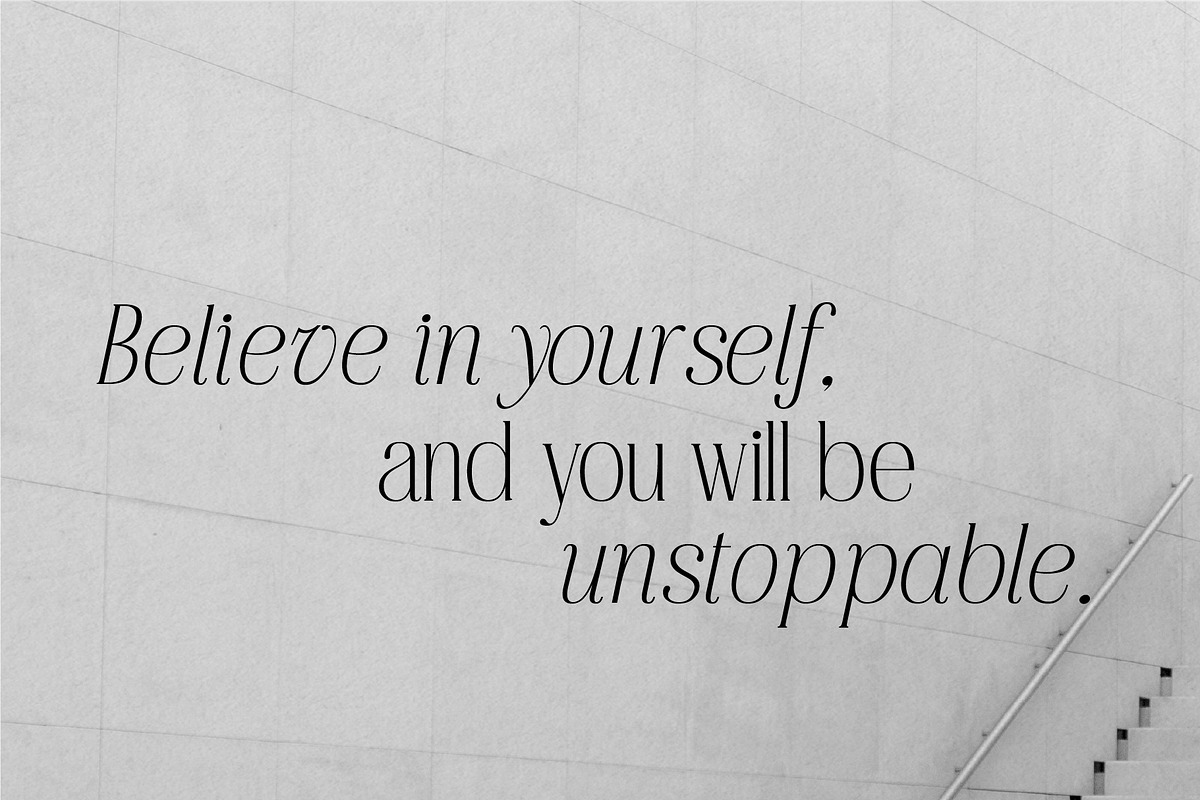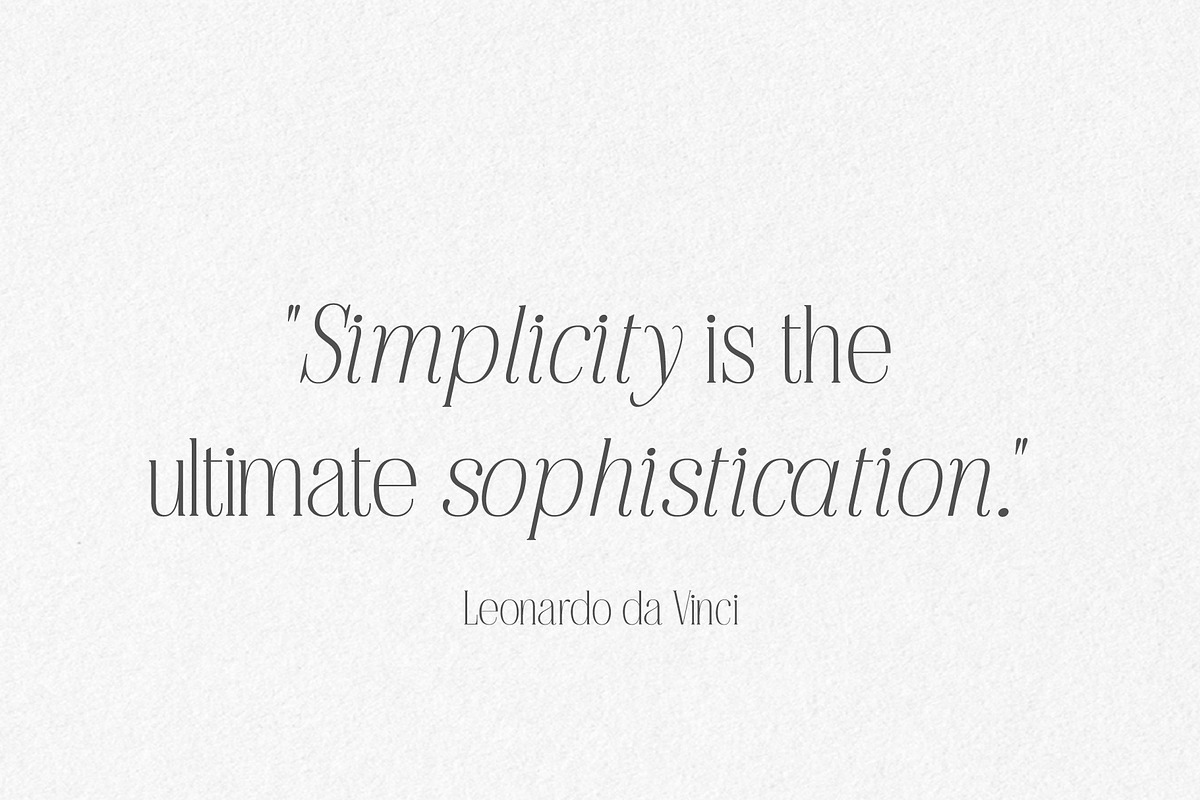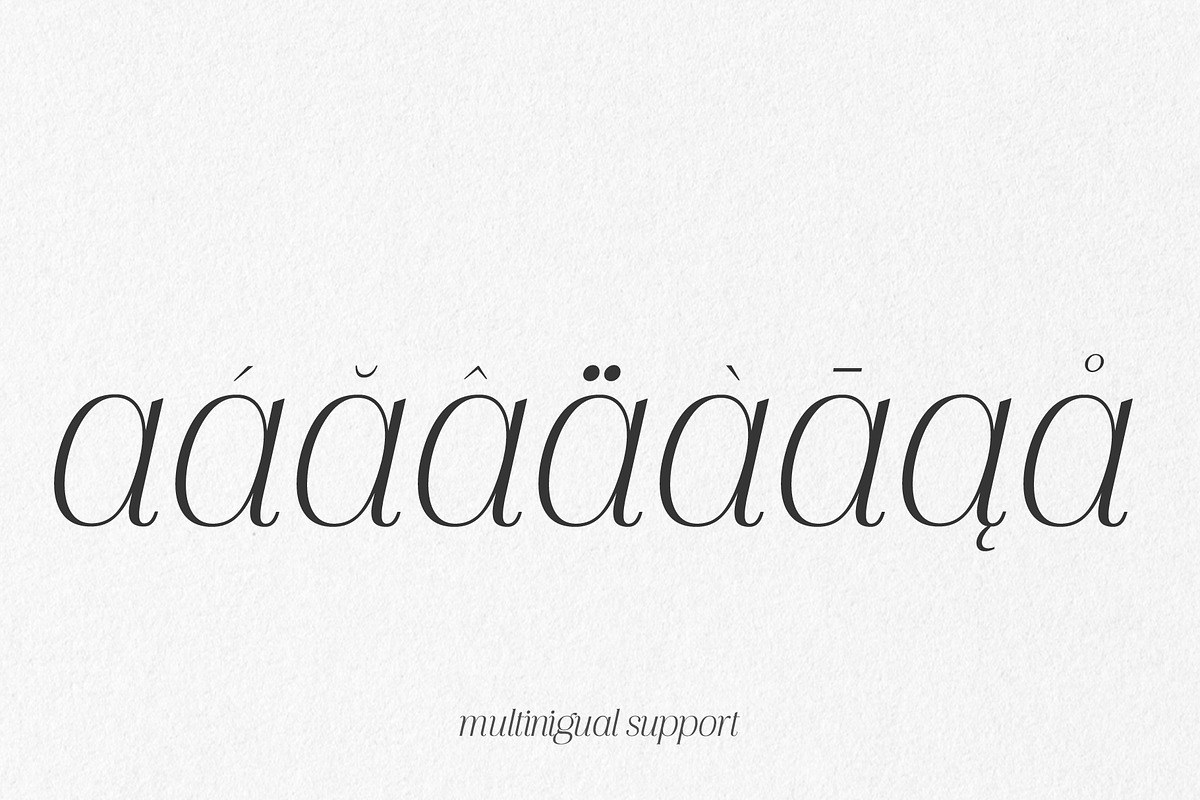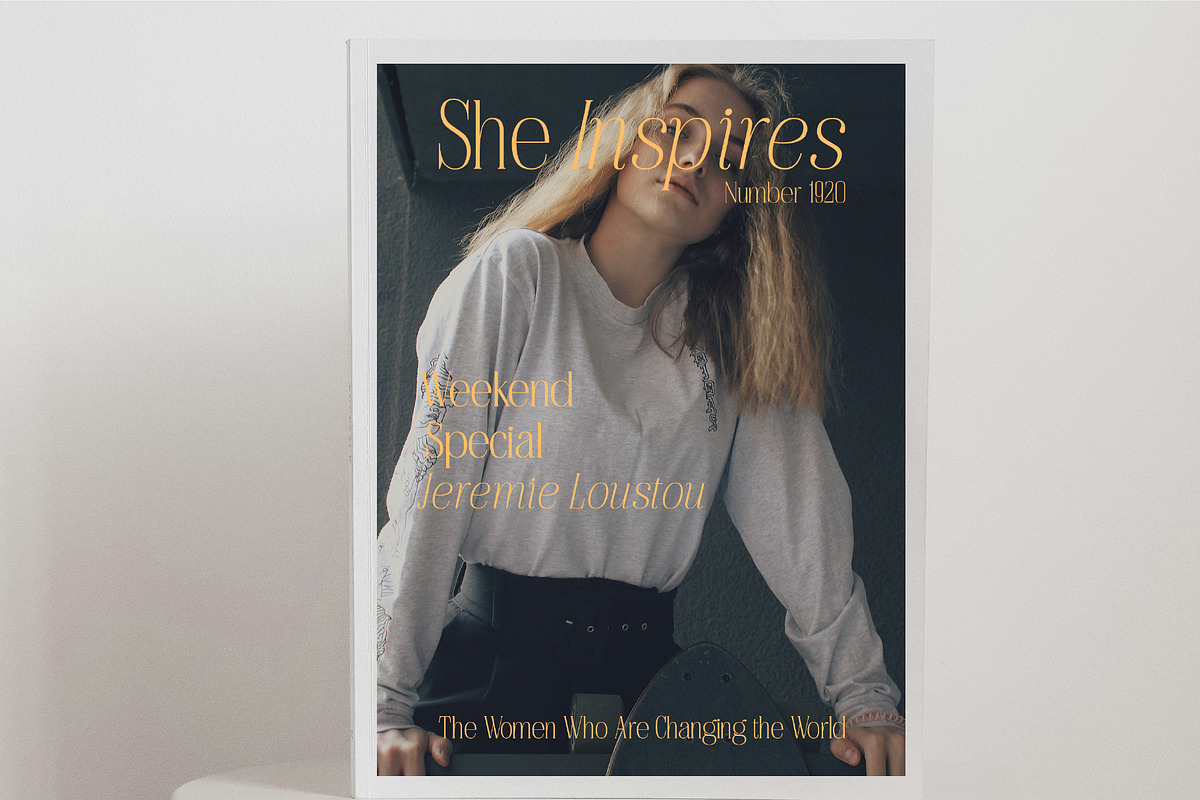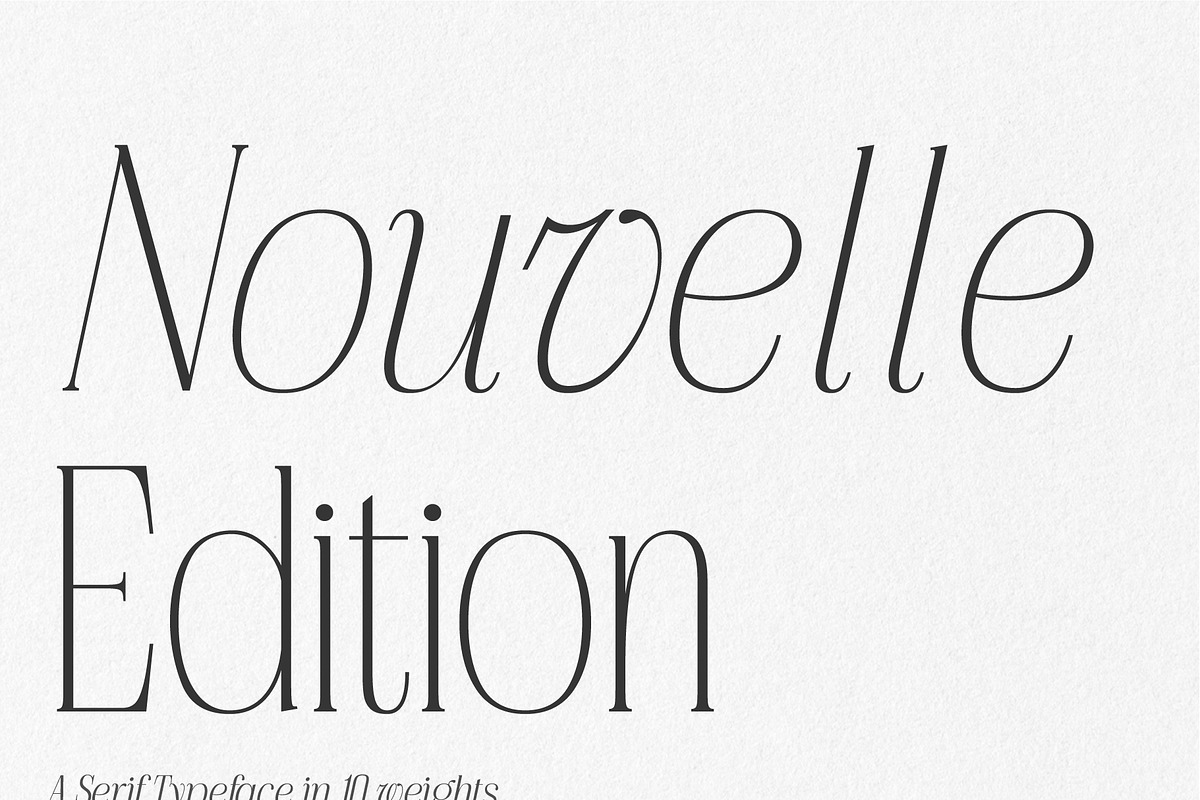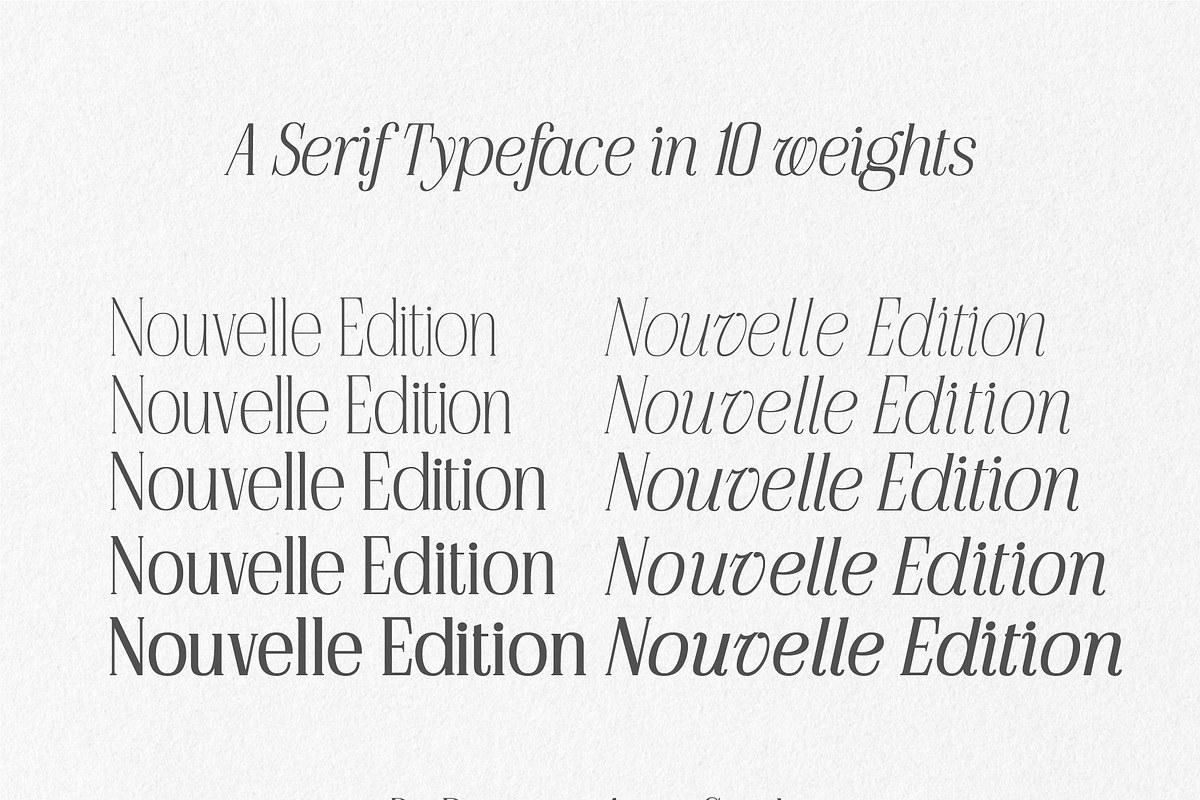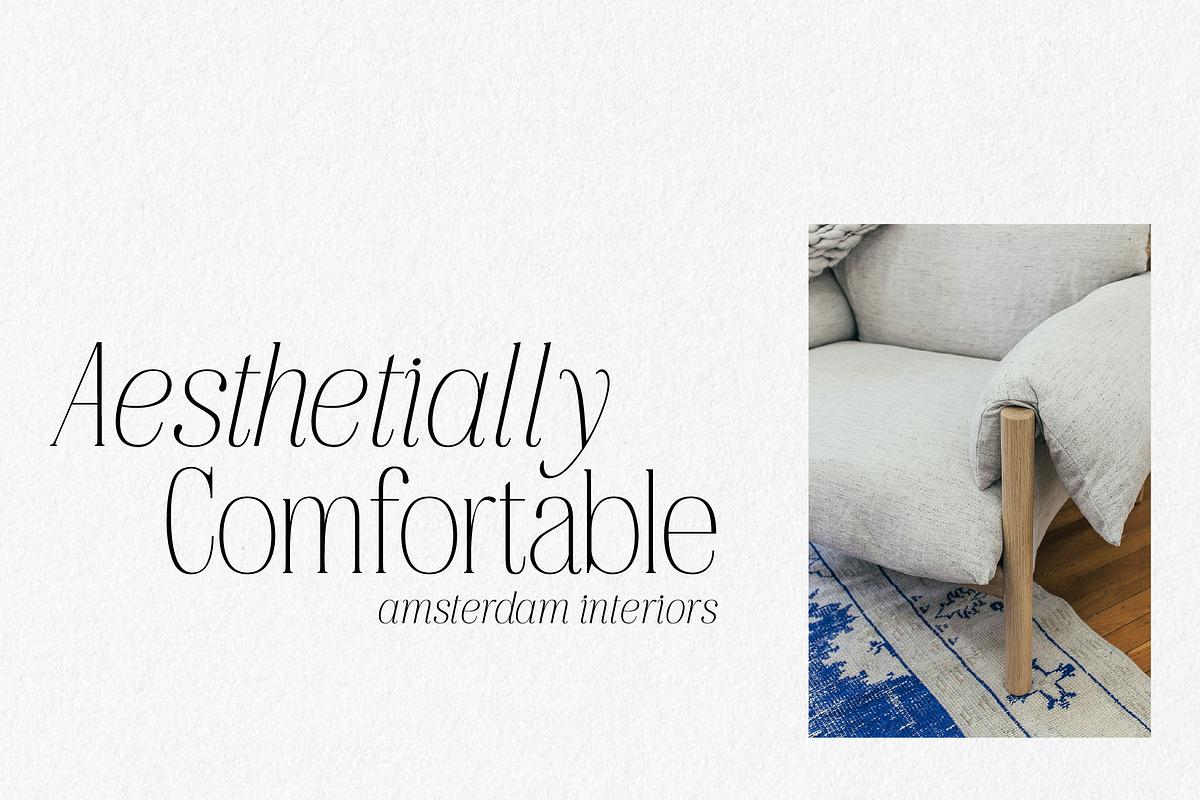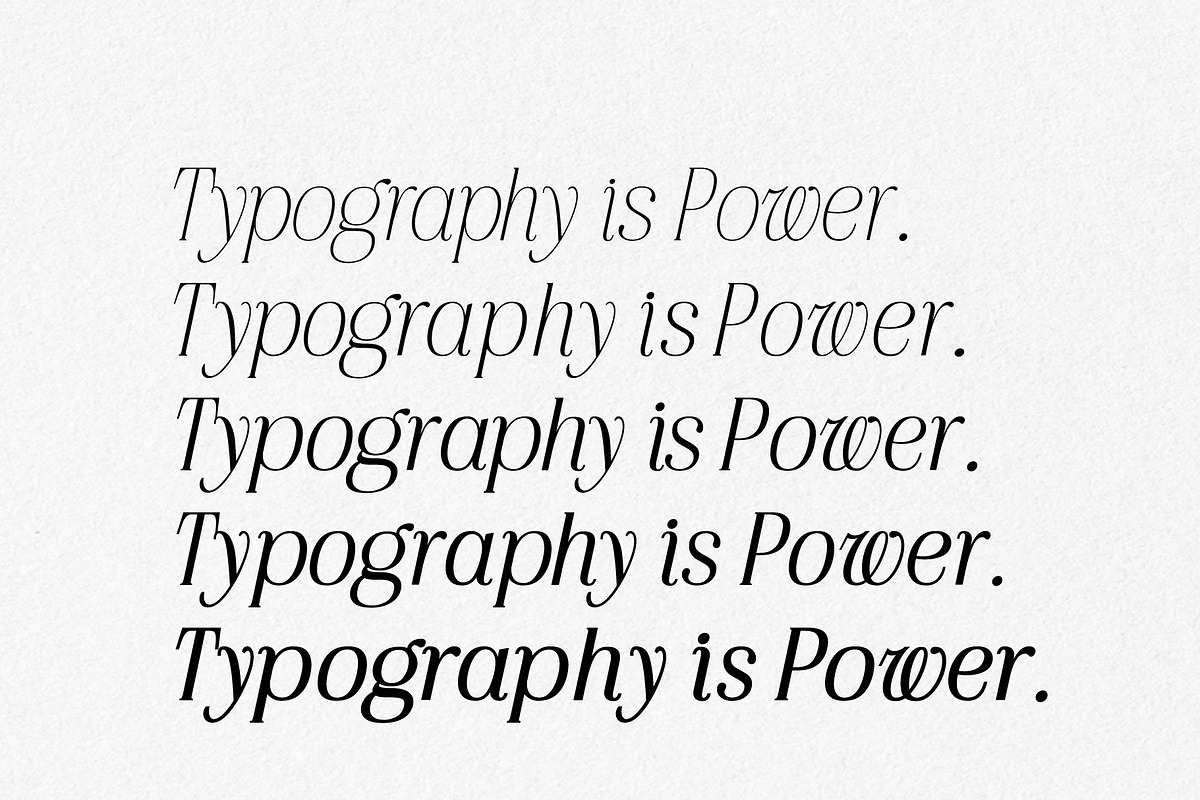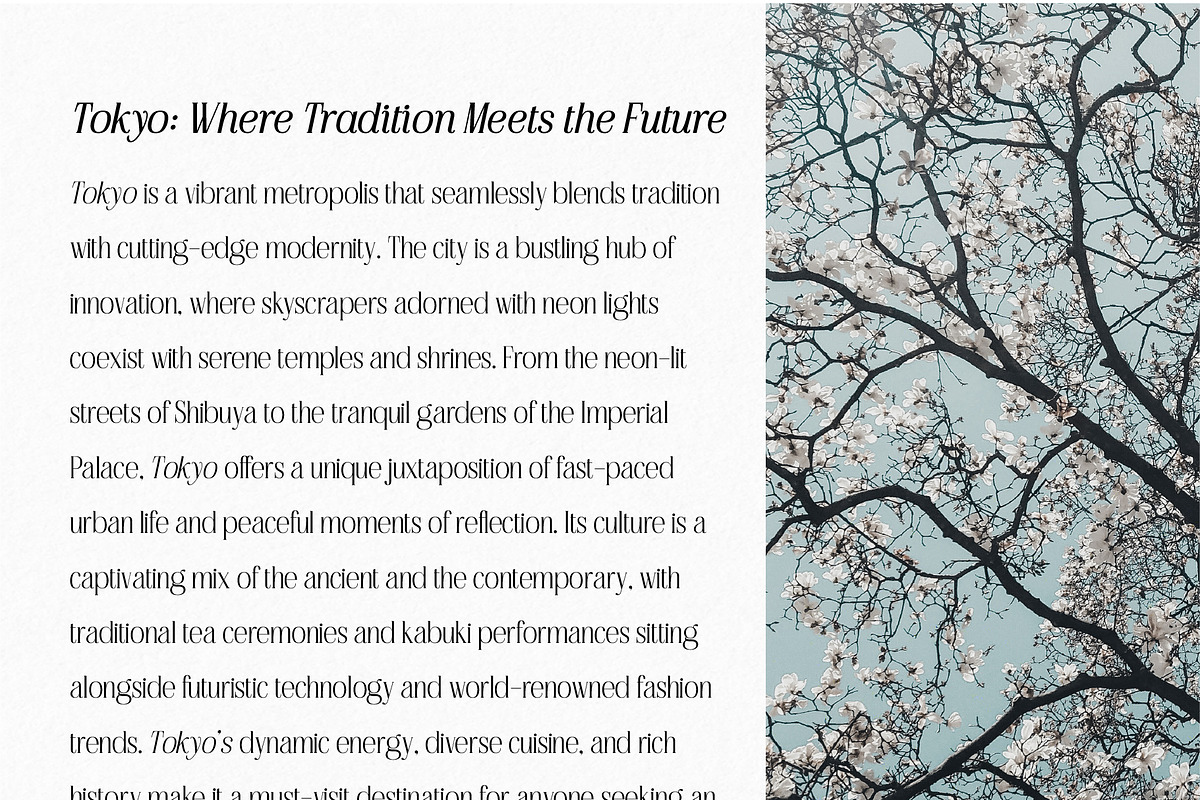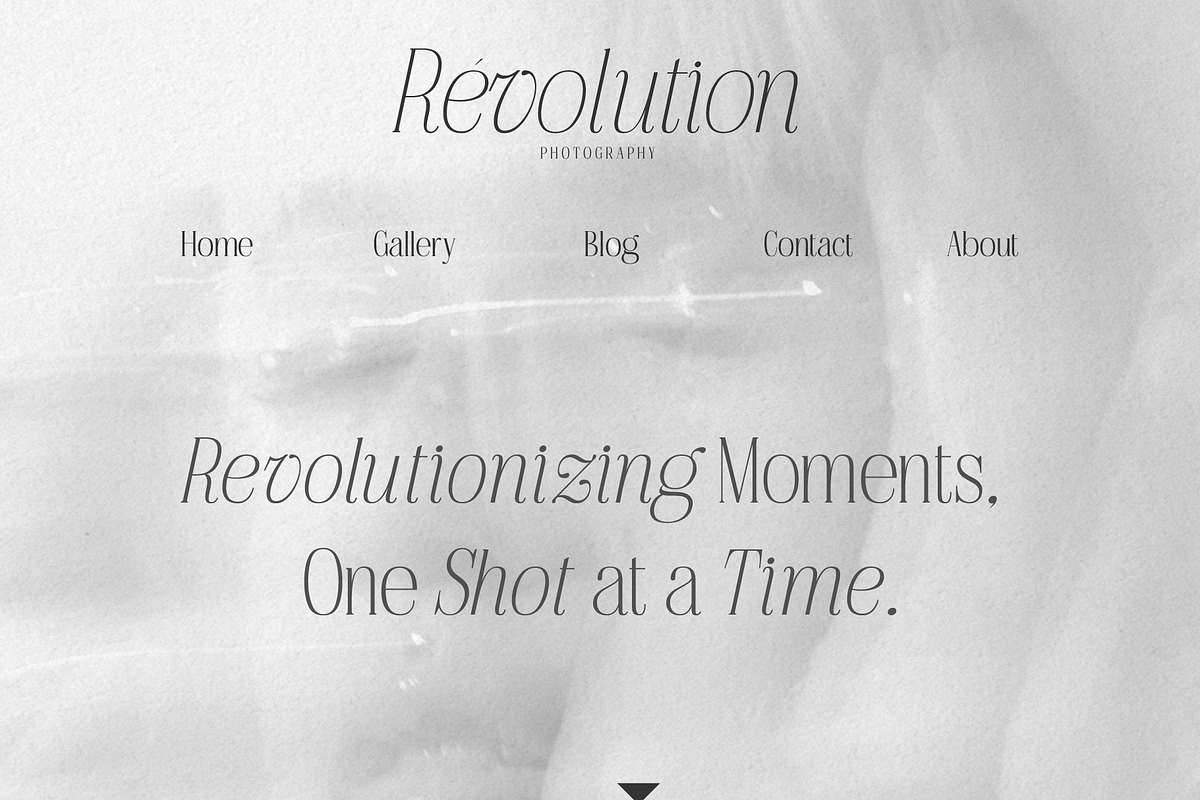
Nouvelle Edition
Nouvelle Edition is a refined high-contrast serif typeface designed for luxury branding, editorial layouts, and high-end publications. Combining classical elegance with modern sophistication, it features five meticulously crafted weights, from Thin to Bold, along with graceful italics for added versatility. Its sharp serifs, balanced proportions, and fluid italics make it ideal for fashion magazines, book covers, and premium branding. With an extended character set and flawless kerning,
Full set of uppercase and lowercase letters
Extended character set with diacritical marks
Standard and discretionary ligatures
Numerals, fractions, and punctuation marks